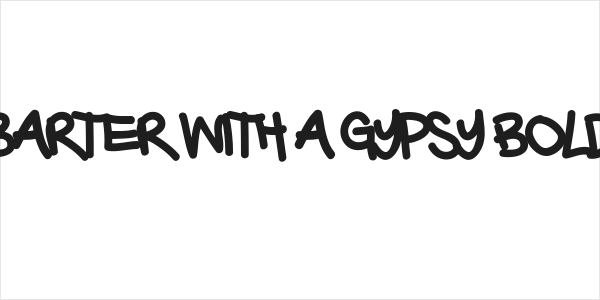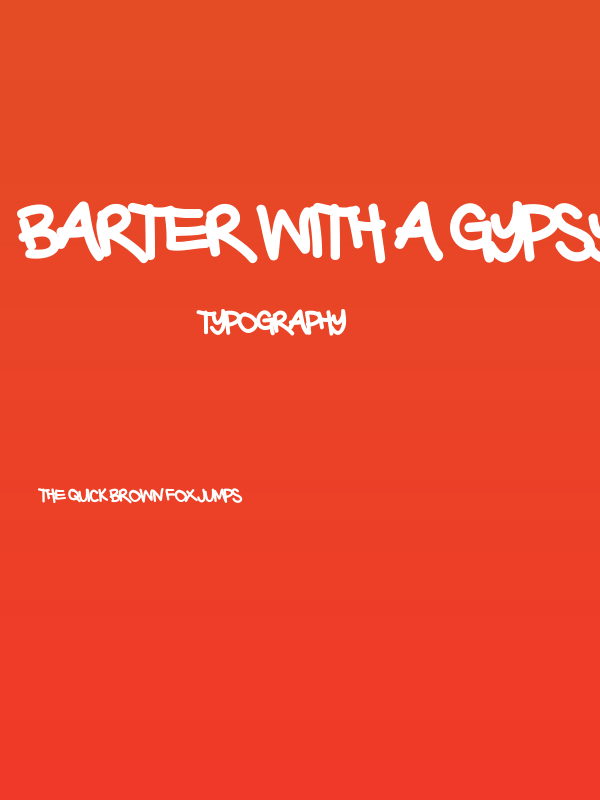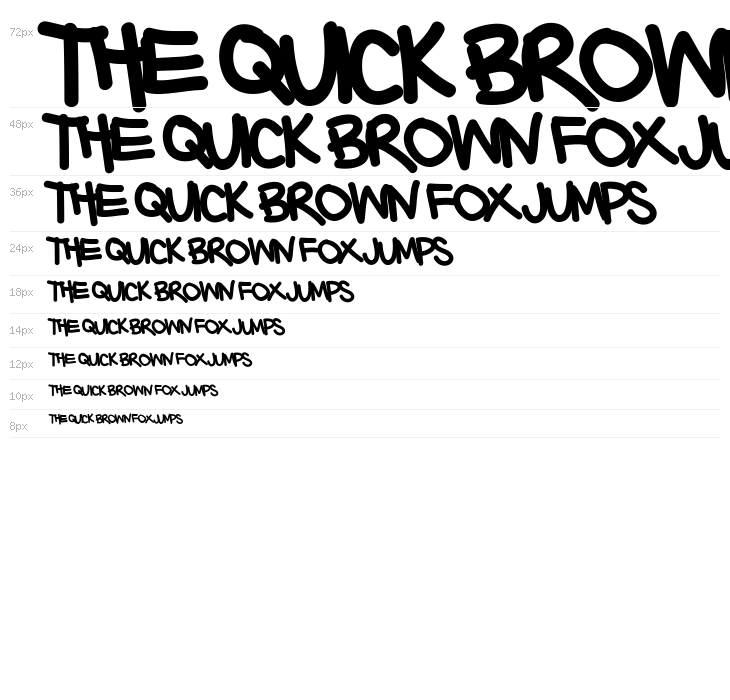
Barter with a Gypsy Bold Font
Barter with a Gypsy Bold Description
This font exudes a bold and playful character, reminiscent of hand-drawn graffiti. The letters are thick and rounded, giving off a casual and approachable vibe. The uppercase and lowercase letters maintain a consistent style, with a slight slant that adds dynamism. The numbers and special characters follow the same aesthetic, ensuring uniformity across all glyphs. The strokes are even and smooth, contributing to a cohesive look. This font would be ideal for projects that require a fun and informal touch, such as children's book covers, playful branding, or event posters.
| Proposed Projects | Ideal for children's book covers, playful branding, event posters, and informal designs. |